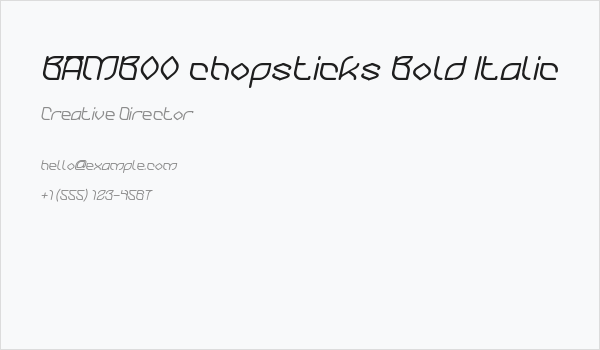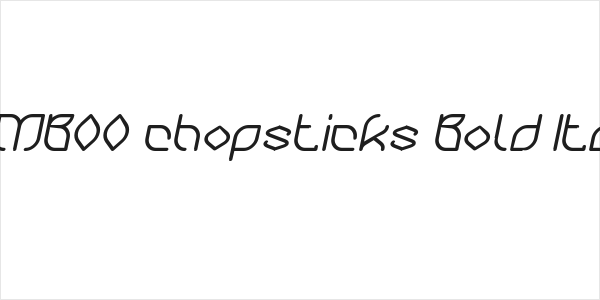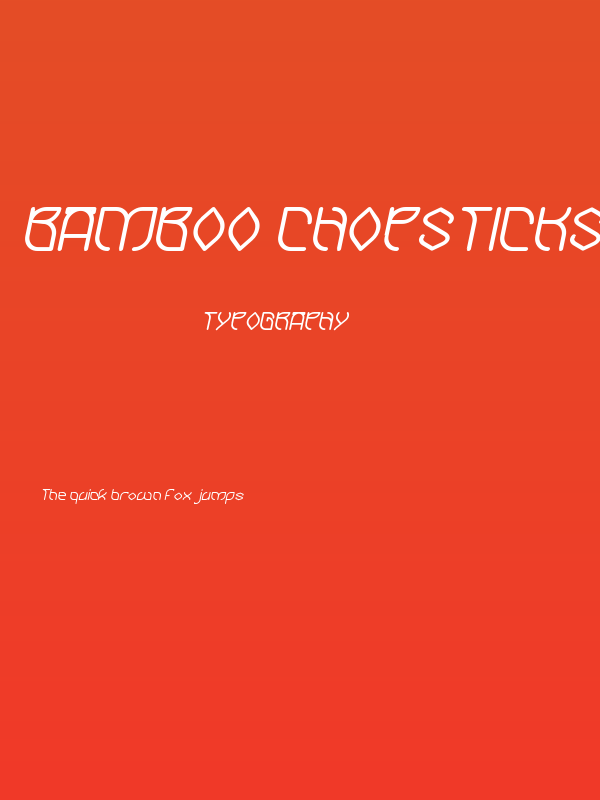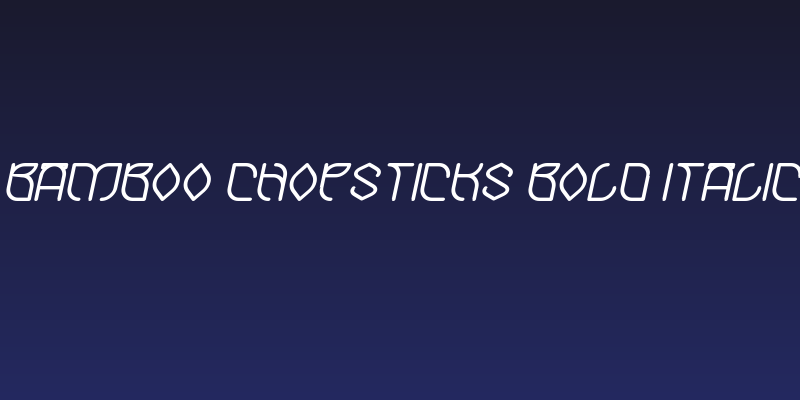
BAMBOO chopsticks Bold Italic Font
BAMBOO chopsticks Bold Italic Description
This font features a unique and modern design with a playful twist, characterized by its bold and italicized style. The letters have a rounded, flowing appearance, reminiscent of bamboo or chopsticks, which adds an organic and dynamic feel. The uppercase and lowercase letters maintain a consistent style, with smooth curves and a slight slant, enhancing the italic effect. Numbers and special characters follow the same aesthetic, ensuring a cohesive look across all elements. The font's distinctiveness makes it suitable for creative projects that require a touch of originality and flair.